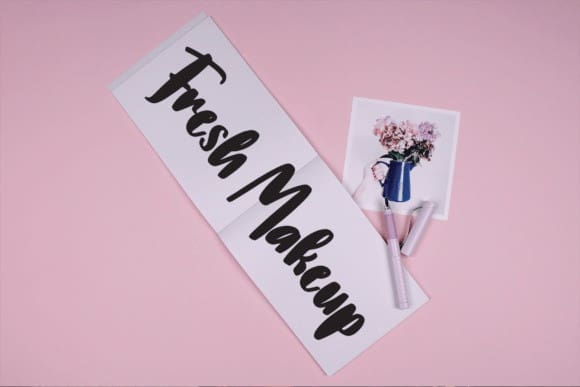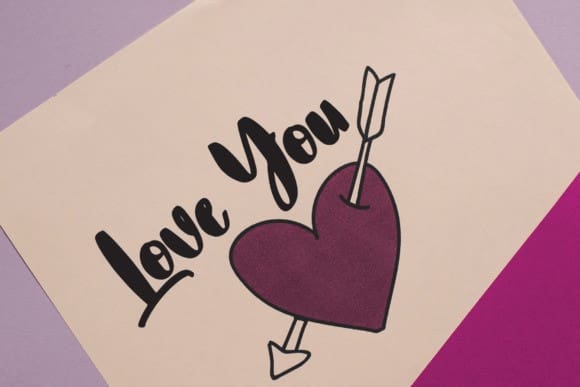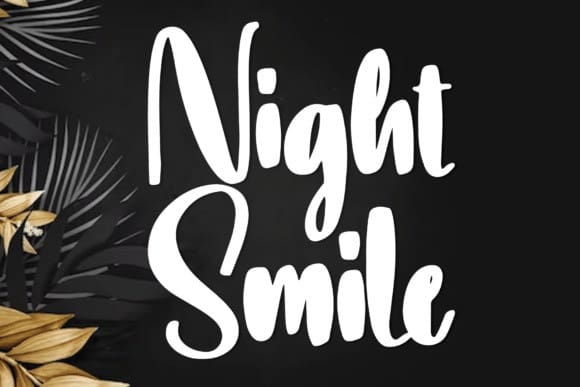
Night Smile Font
Night Smile Font is a fresh and neat handwritten font. Its bold characters are perfect for adding a special touch to any design you wish to create!